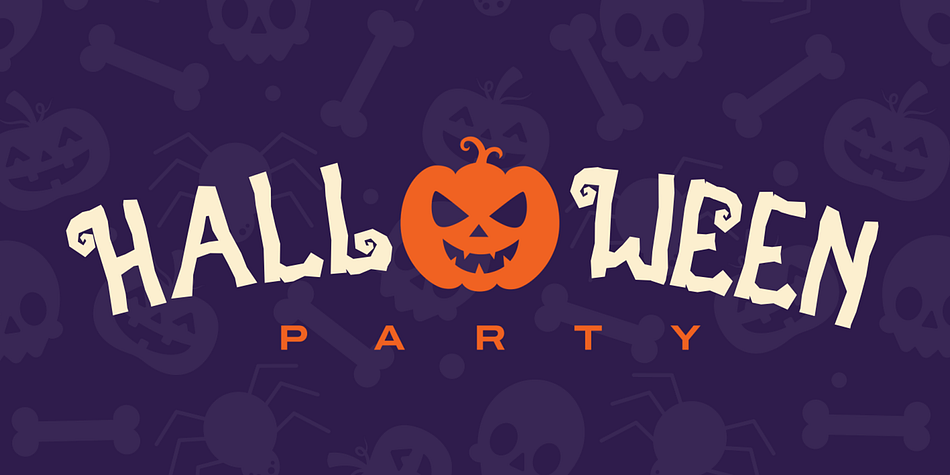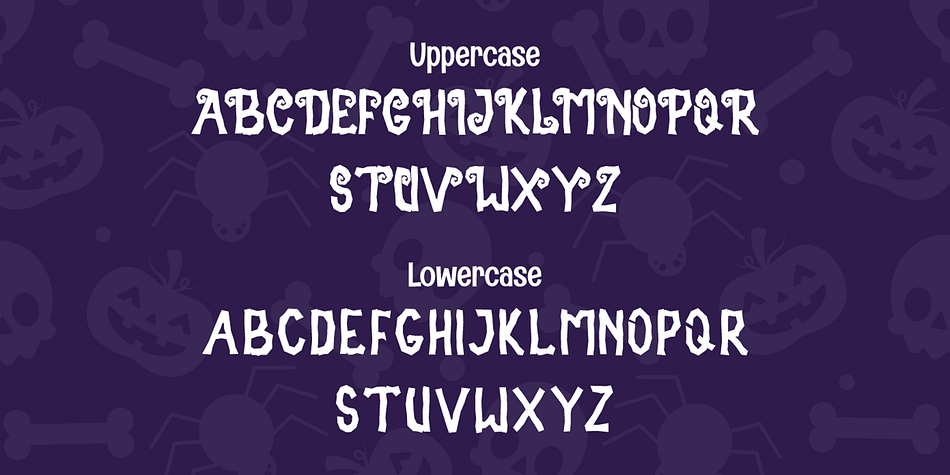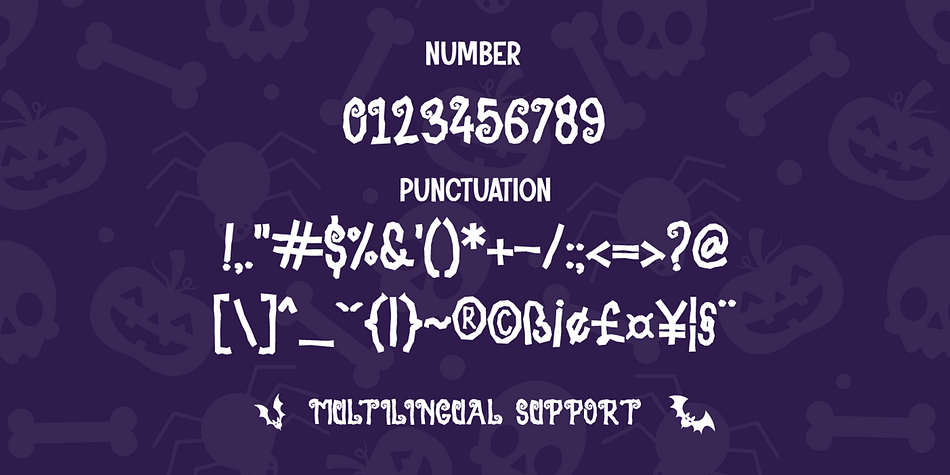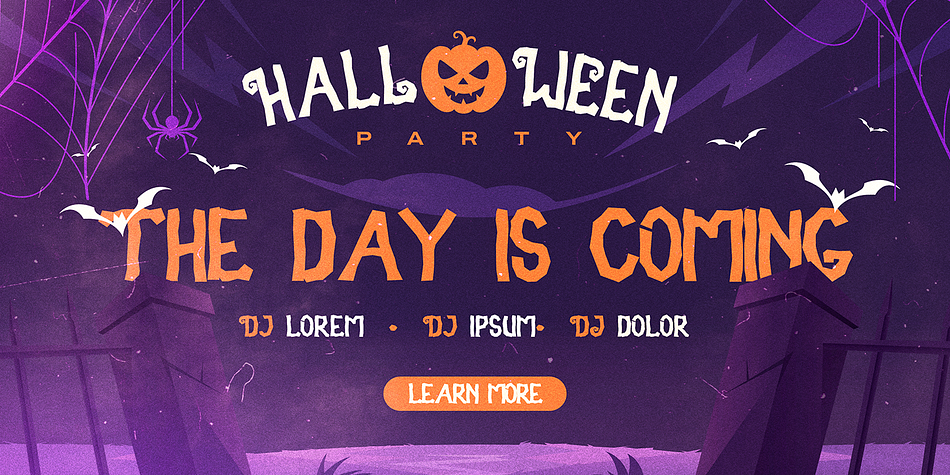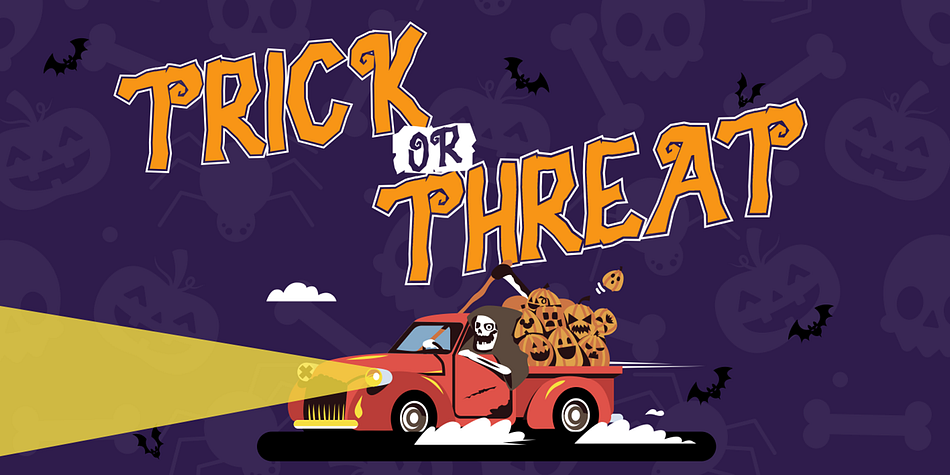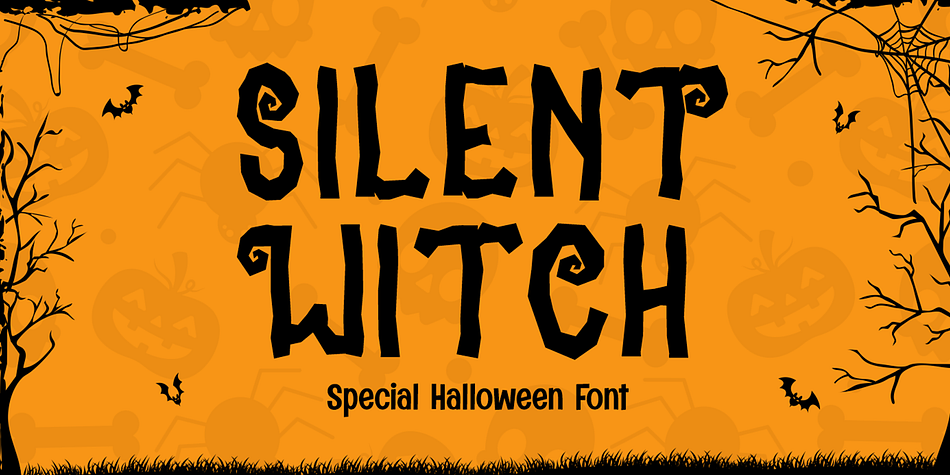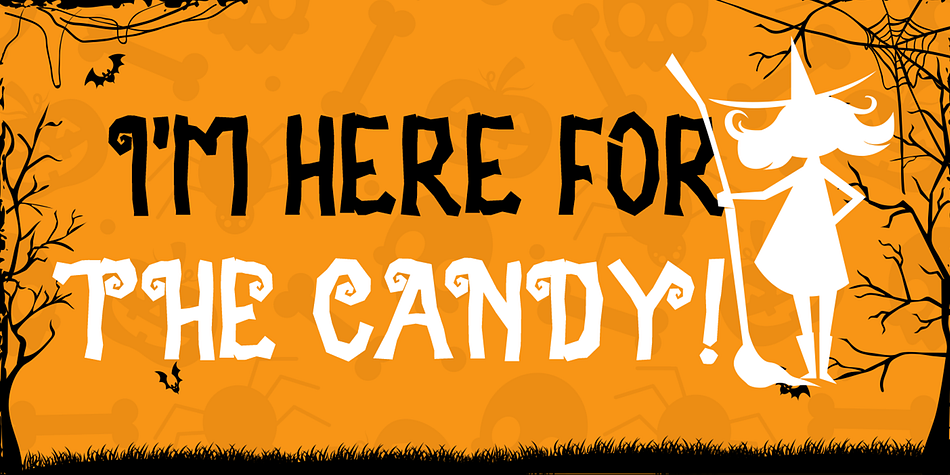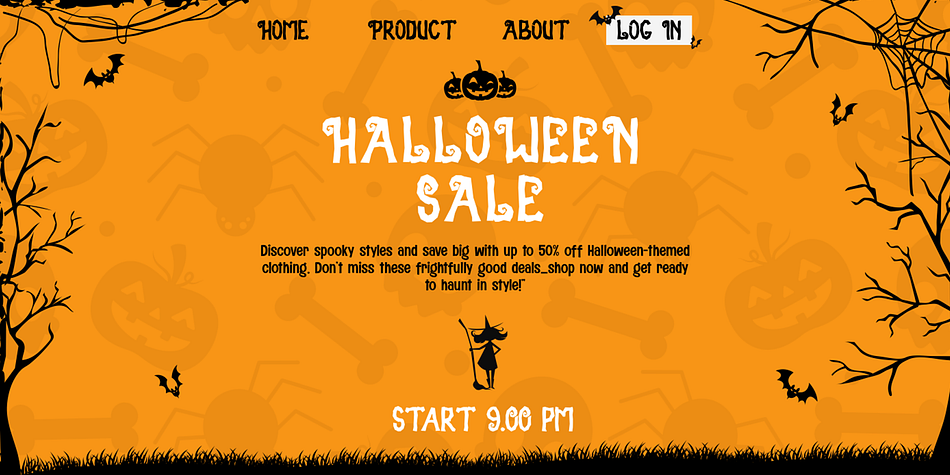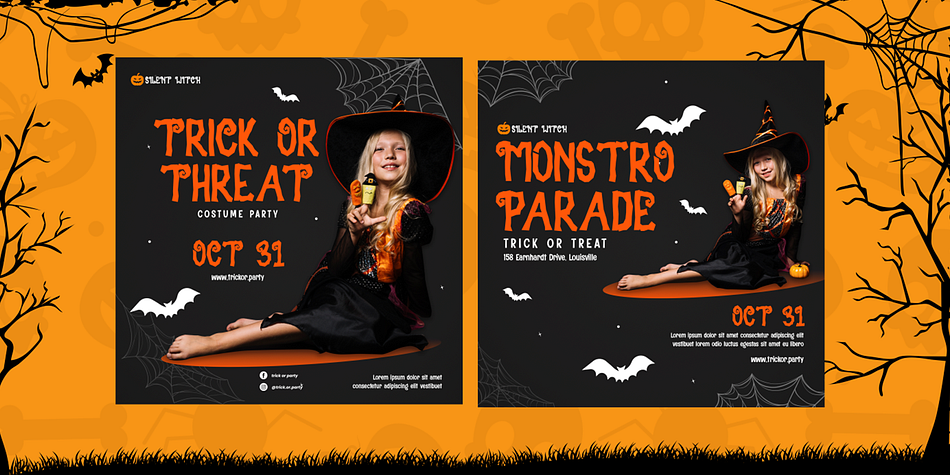
Silent Witch
Silent Witch is a novelty font family published by Cikareotype Studio.
Silent Witch is a delightful Halloween-themed display font that blends a touch of spookiness with a playful, cute aesthetic. Each uppercase letter features a whimsical curl, adding a unique charm that makes this font stand out. Perfect for Halloween season designs, Silent Witch brings a magical, yet approachable vibe to invitations, posters, decorations, and more. Whether you’re working on a project for a kids’ Halloween party or crafting a festive greeting, this font’s quirky style will add just the right amount of fun and fright to your creations.